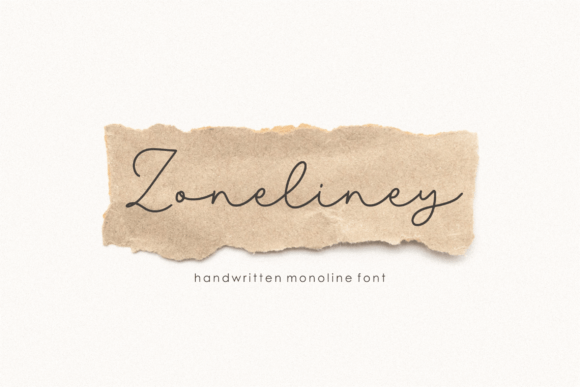
Introducing Zoneliney Font: The Perfect Cursive Monoline Handwritten Font for Your Creative Projects
In the world of typography, fonts play a crucial role in conveying the tone and personality of a brand or creative project. With the numerous font options available, it can be overwhelming to choose the right one that suits your needs. However, if you’re looking for a beautiful and cursive monoline handwritten font, look no further than Zoneliney Font. In this article, we’ll explore the features and benefits of Zoneliney Font and how it can elevate your product packaging, branding projects, magazines, social media posts, wedding invitations, and more.
What is Zoneliney Font?
Zoneliney Font is a stunning cursive monoline handwritten font designed to add a touch of elegance and sophistication to your creative projects. Its unique monoline style, characterized by smooth and flowing lines, makes it perfect for a wide range of applications, from product packaging and branding to digital content creation.
Whether you’re a designer, entrepreneur, or content creator, Zoneliney Font is an excellent choice for those seeking a font that exudes refinement and poise. Its versatility and legibility make it suitable for various projects, including:
- Product packaging: Add a touch of luxury to your product labels and packaging with Zoneliney Font.
- Branding projects: Establish a strong brand identity with this elegant and cursive font.
- Magazines and editorials: Use Zoneliney Font to add a sophisticated touch to your publications.
- Social media posts: Elevate your social media content with this beautiful and eye-catching font.
- Wedding invitations: Make your wedding invitations truly special with Zoneliney Font’s romantic and elegant feel.
Key Features of Zoneliney Font
So, what makes Zoneliney Font stand out from other fonts? Here are some of its key features:
- Monoline style: Zoneliney Font boasts a sleek and modern monoline style, characterized by smooth and flowing lines.
- Cursive and handwritten: This font features a beautiful, cursive, and handwritten style that adds a touch of warmth and personality to your projects.
- Legible and readable: Zoneliney Font is designed to be highly legible and readable, making it perfect for both digital and print applications.
- Elegant and sophisticated: This font exudes elegance and sophistication, making it ideal for high-end branding and creative projects.
- Versatile: Zoneliney Font can be used for a wide range of projects, from product packaging to digital content creation.
Benefits of Using Zoneliney Font
By choosing Zoneliney Font for your creative projects, you can enjoy numerous benefits, including:
- Enhanced brand identity: Zoneliney Font can help establish a strong and sophisticated brand identity that sets you apart from the competition.
- Increased visual appeal: This font’s elegant and cursive style can add a touch of beauty and sophistication to your projects, making them more visually appealing.
- Improved readability: Zoneliney Font’s legibility and readability ensure that your message is conveyed clearly and effectively.
- Time-saving: With Zoneliney Font, you can save time and effort in designing and creating your projects, as this font is versatile and easy to use.
- Type your text: Type your text using Zoneliney Font, and adjust the size and style as needed.
- Experiment and customize: Feel free to experiment with different colors, textures, and effects to customize your project.
| Font Name | Zoneliney Font |
| Author | qwrtypefoundry |
In conclusion, Zoneliney Font is a beautiful and cursive monoline handwritten font that’s perfect for a wide range of creative projects. Its elegant and sophisticated style, combined with its legibility and versatility, make it an excellent choice for designers, entrepreneurs, and content creators. Whether you’re looking to elevate your product packaging, branding projects, magazines, social media posts, or wedding invitations, Zoneliney Font is an excellent choice. So why wait? Download Zoneliney Font today and take your creative projects to the next level!